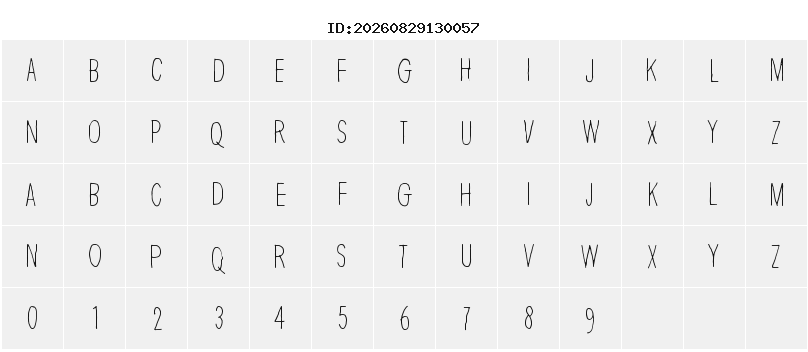
Thin king Preview
• Font Name: Thin king
• Font ID: Thin king:Version 1.00
• Full Font Name: Thin king
• Version: Version 1.00 April 6, 2016, initial release
• PostScript Name: Thinking
• Character Count: 220
About Thin king.ttf
Thin king.ttf is a modern, elegant sans-serif font designed for ultimate readability and visual harmony. Perfect for branding, headlines, web design, and print materials.